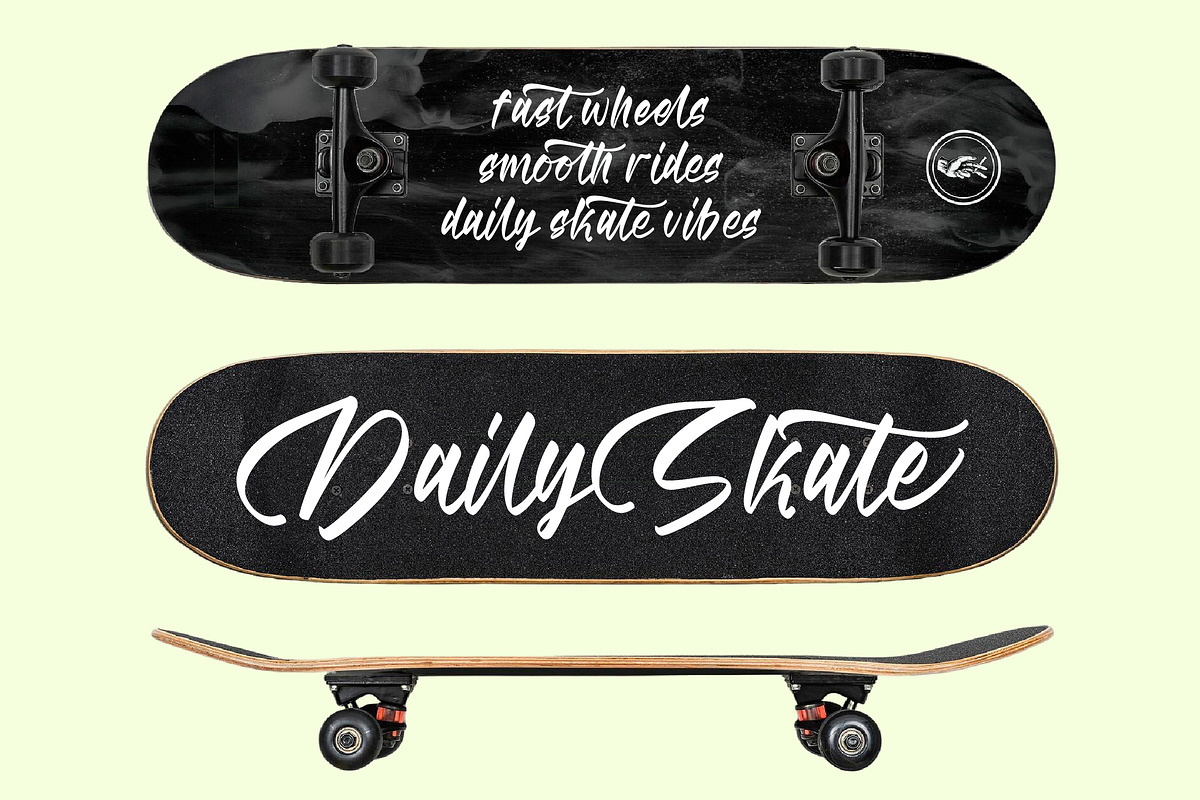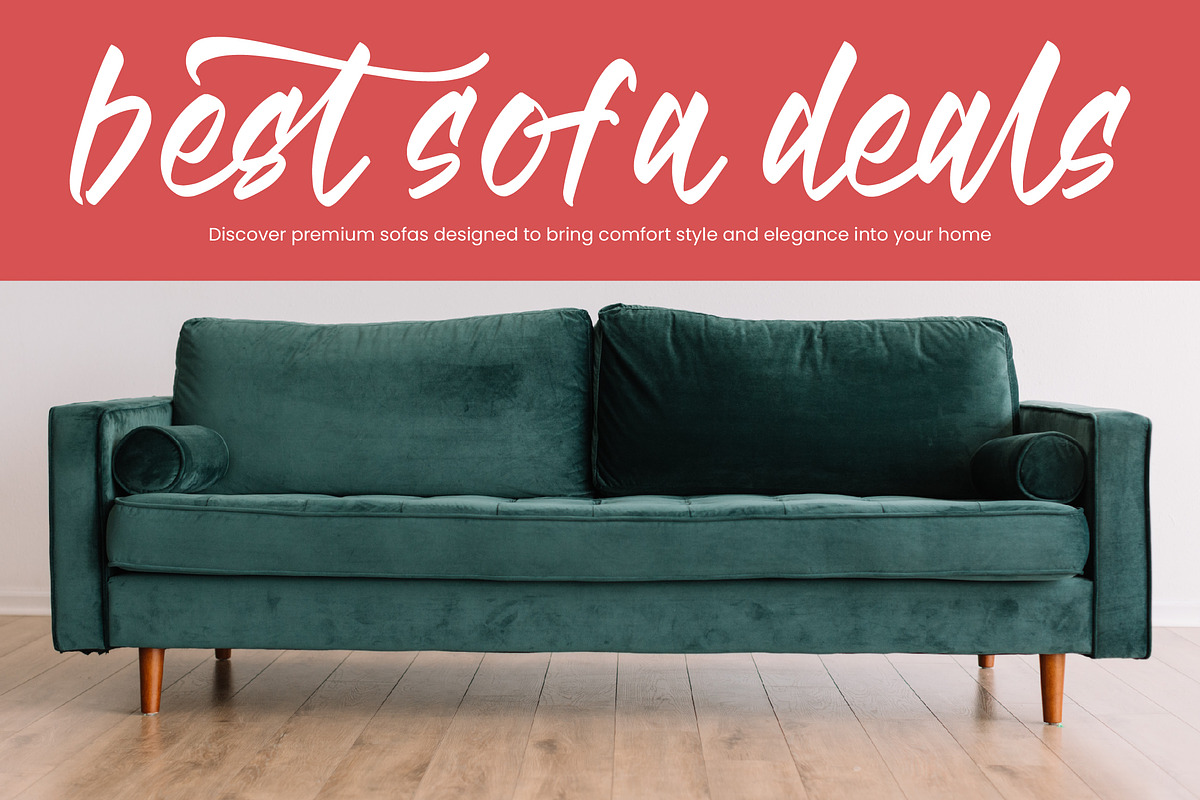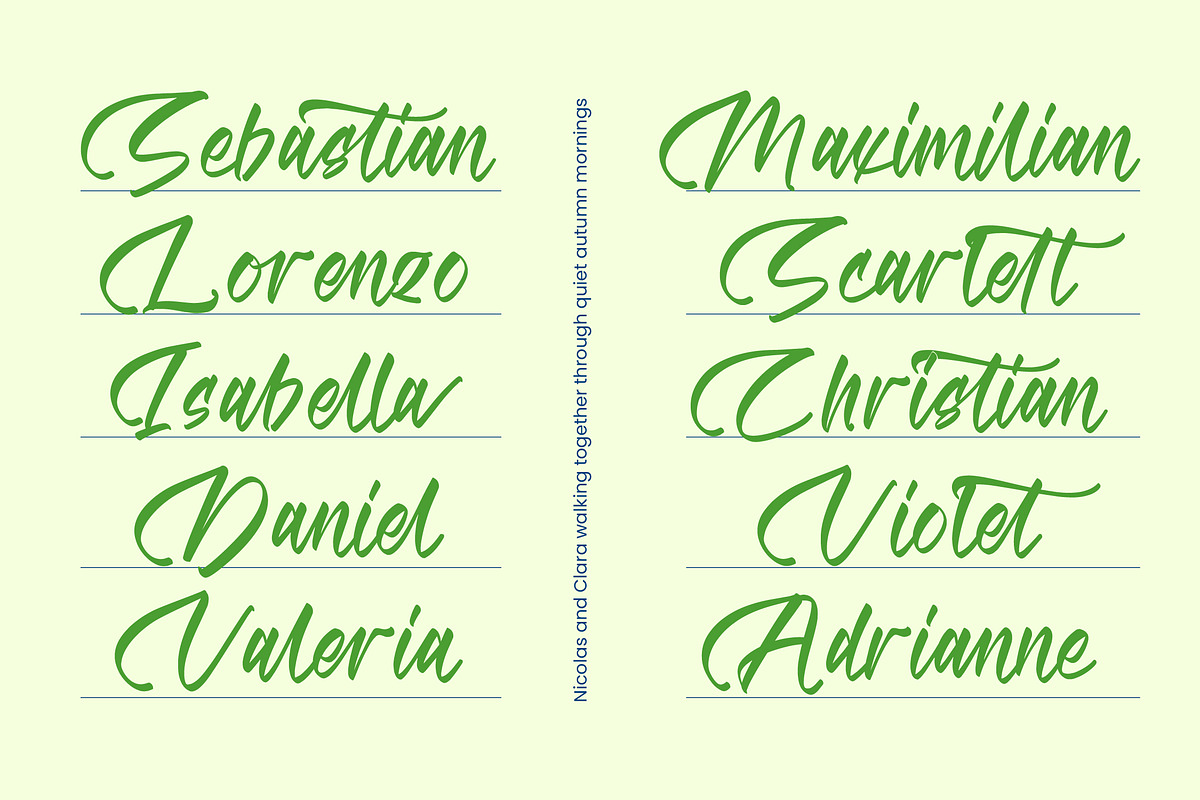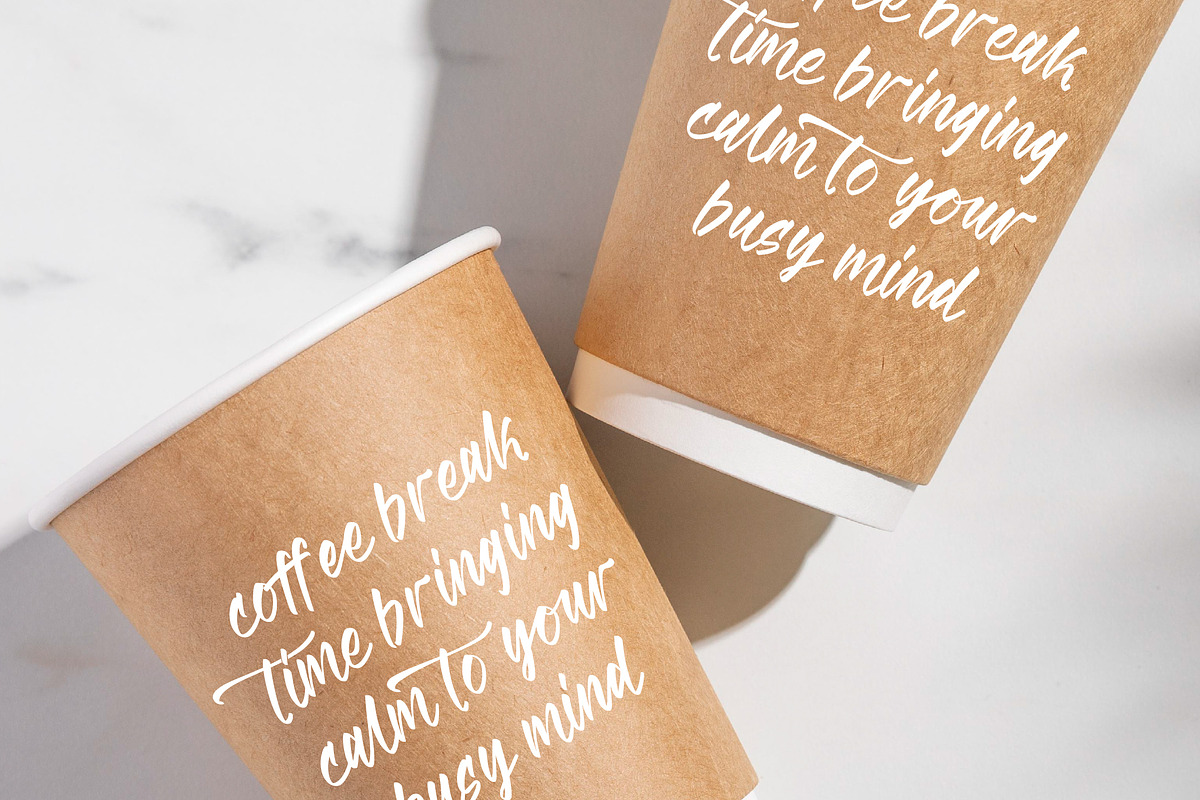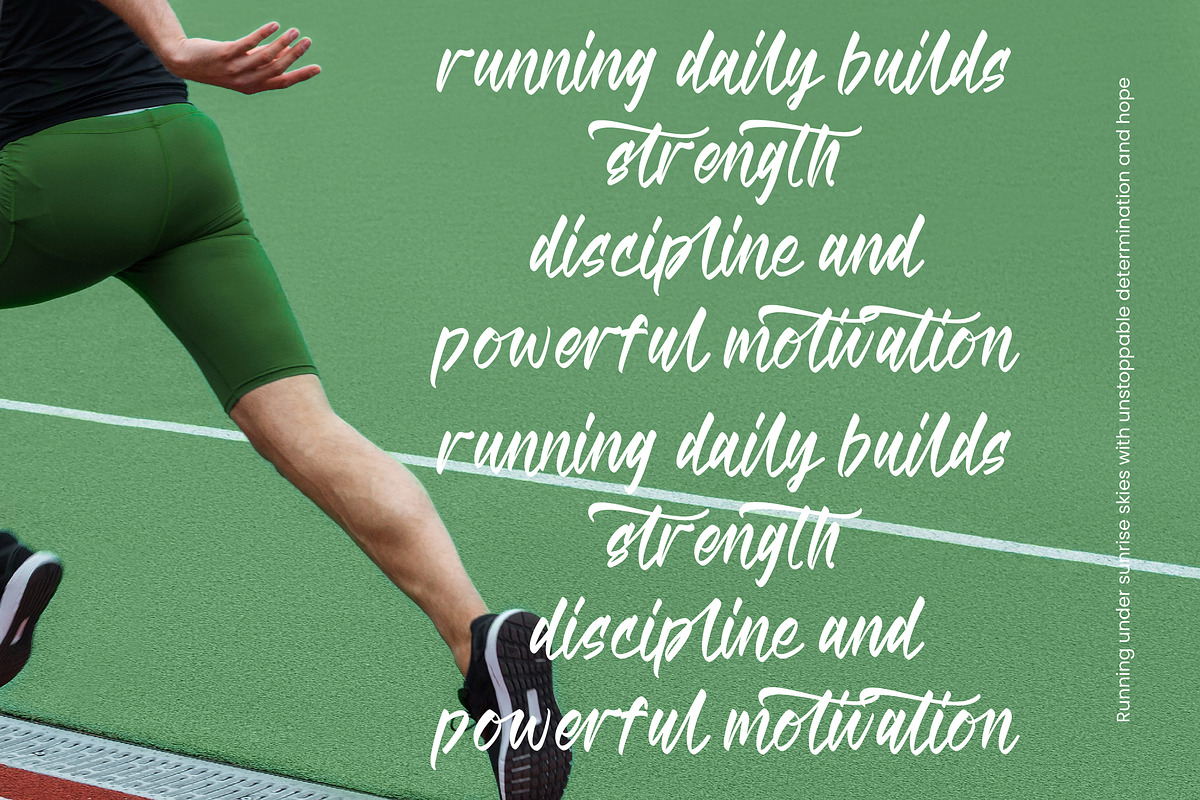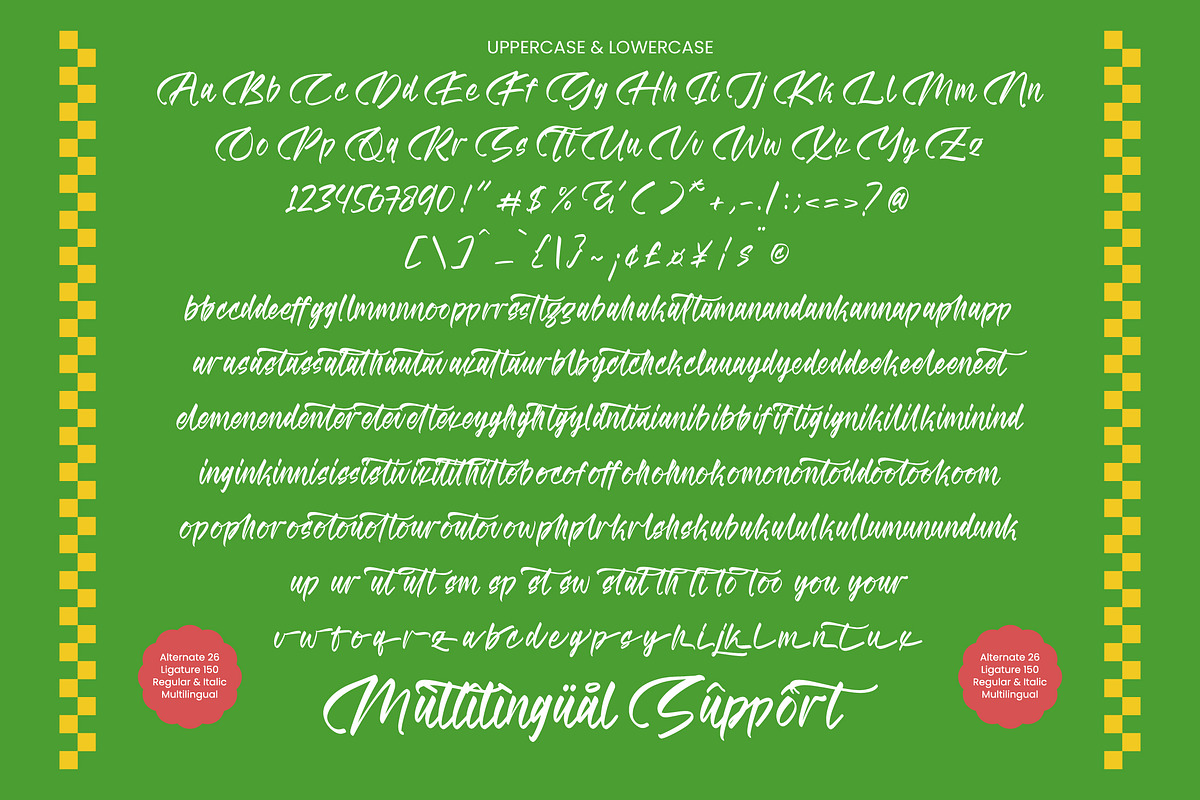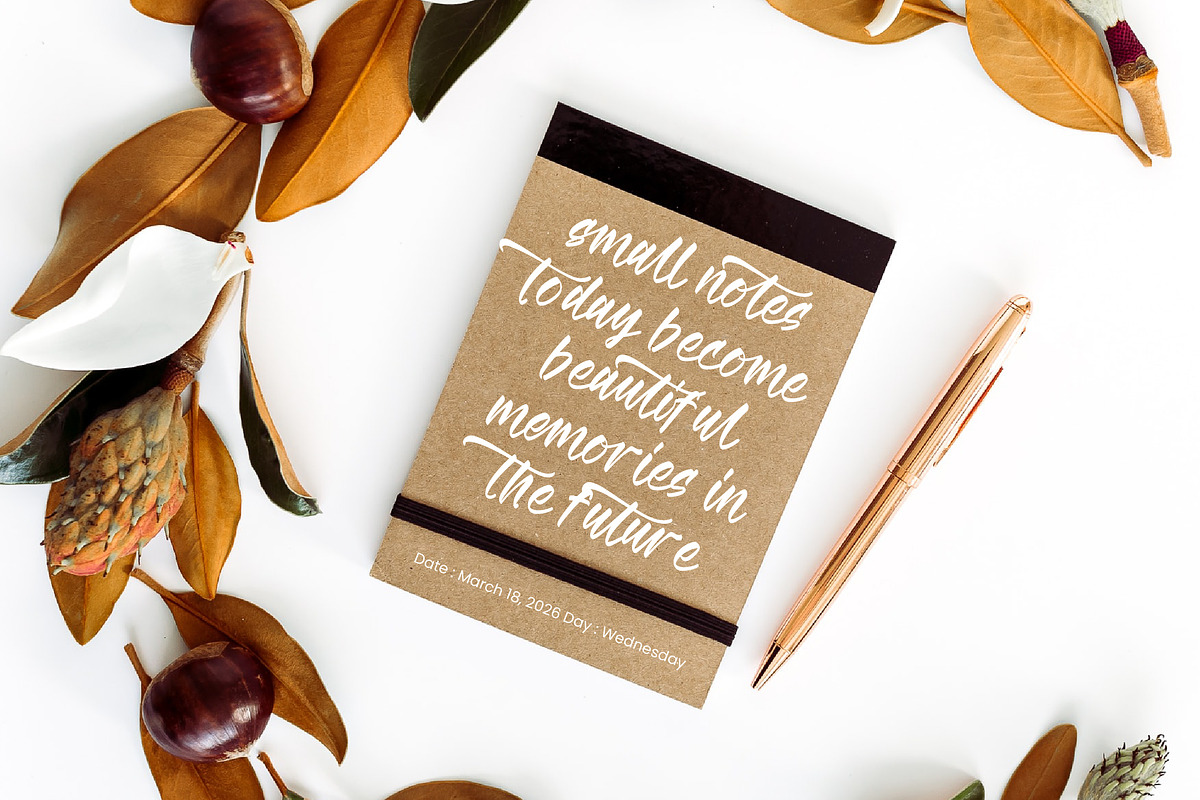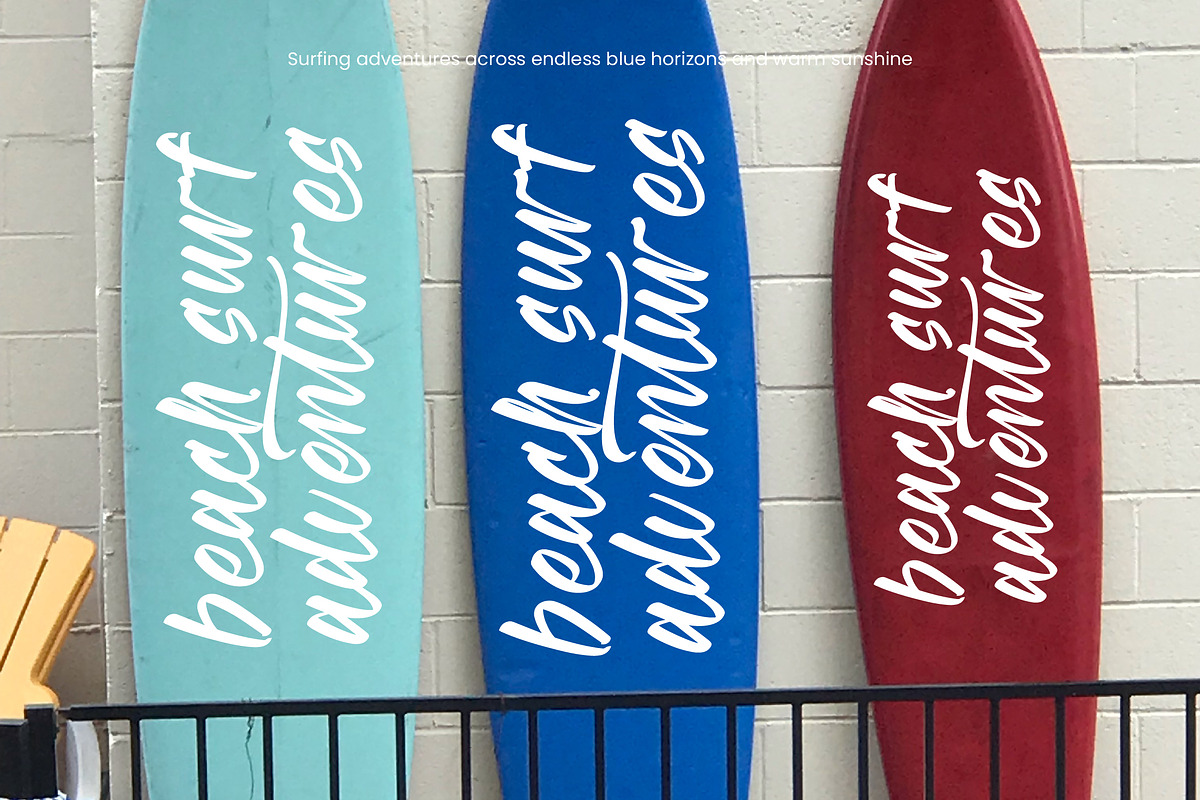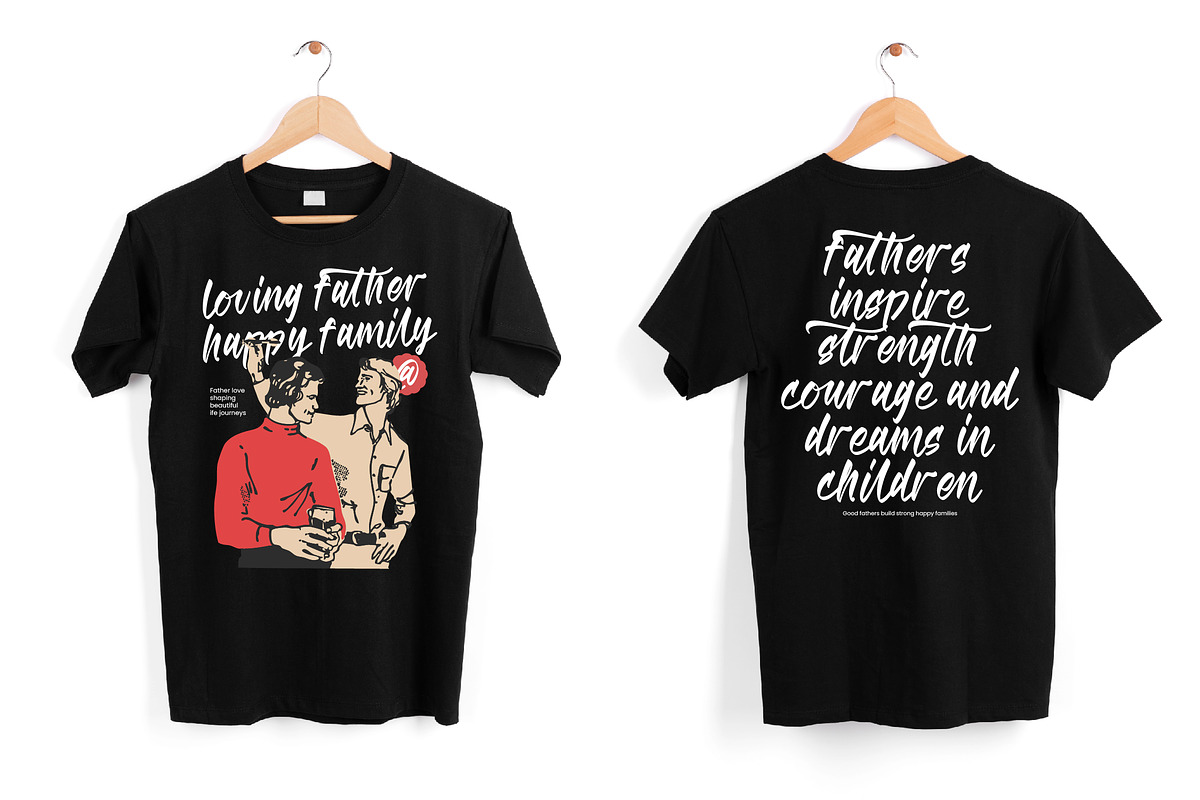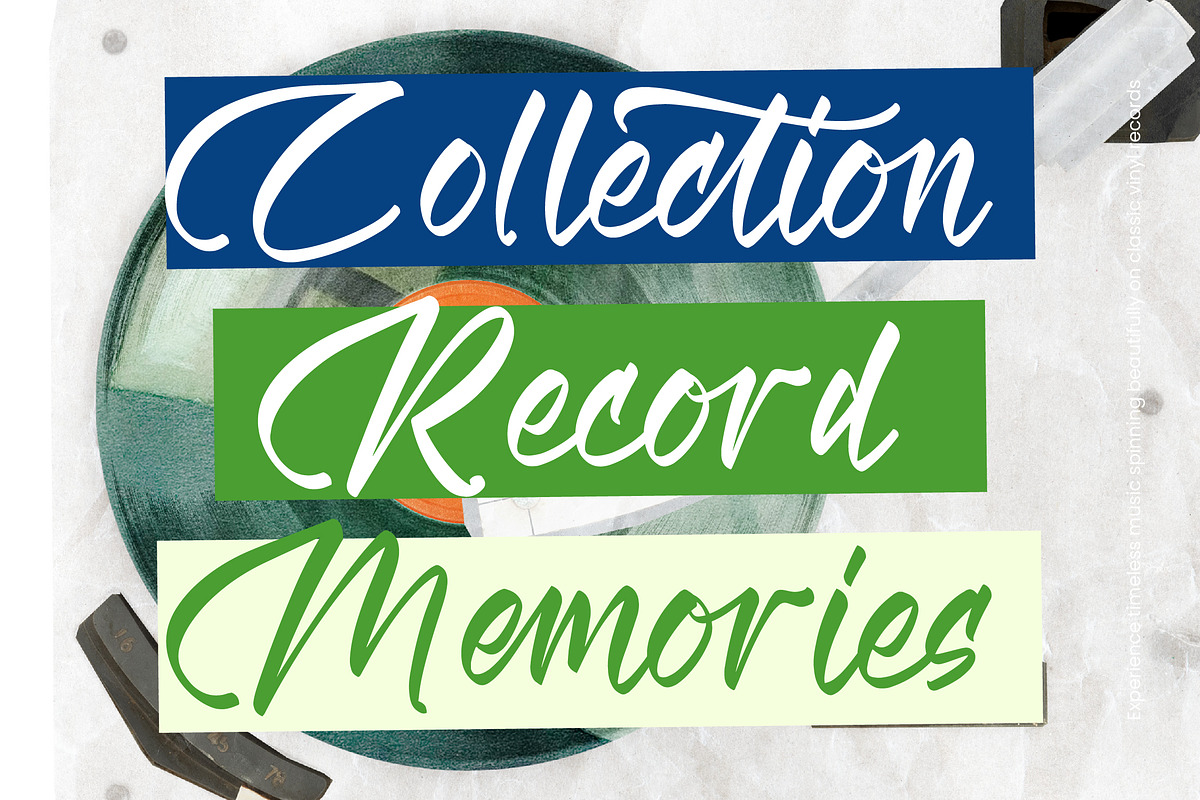
Matchengis Brush Handwritten Font
Matchengis - Brush Handwritten Font , Unleash raw energy and fluid movement with Matchengis, a font that captures the essence of handmade artistry. This typeface brings an authentic, human touch to every design, making your messages feel personal and impactful.
Inspired by the rapid strokes of a saturated ink brush, this font draws from the vintage elegance of handcrafted labels and the rhythmic flow of calligraphy. It evokes a sense of nostalgia blended with modern spontaneity, reminiscent of quiet, focused craftsmanship.
The soul of this font lies in its modern script display and luxury typography feel, offering a sophisticated alternative to standard handwriting. With its high-contrast brushstrokes, it functions as a powerful editorial font that commands attention while maintaining a high branding impact.
Staying ahead of the modern calligraphy trend, this typeface aligns perfectly with the current demand for handwritten display fonts and character-driven typography. It bridges the gap between classic artistry and digital precision, making it a staple for organic design.
Whether you are working on a high-end logo design, a comprehensive branding suite, or sophisticated editorial layouts, this font excels across all mediums. Its versatility makes it the perfect choice for packaging, dream-like wedding invitations, and the fast-paced world of fashion marketing.
This professional package includes over 150 ligatures and 26 alternates to ensure your typography never looks repetitive. It also offers full multilingual support and international characters, along with beautifully crafted swashes that add a flourish of personality to every word.